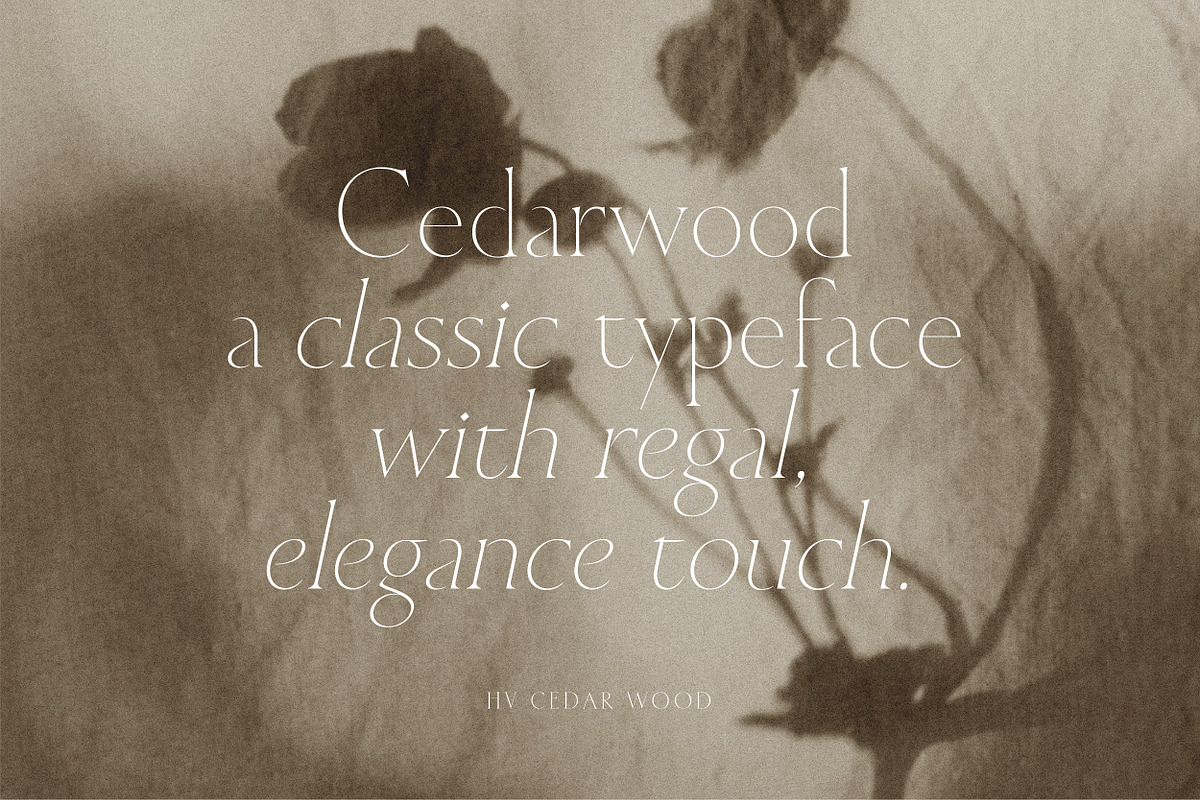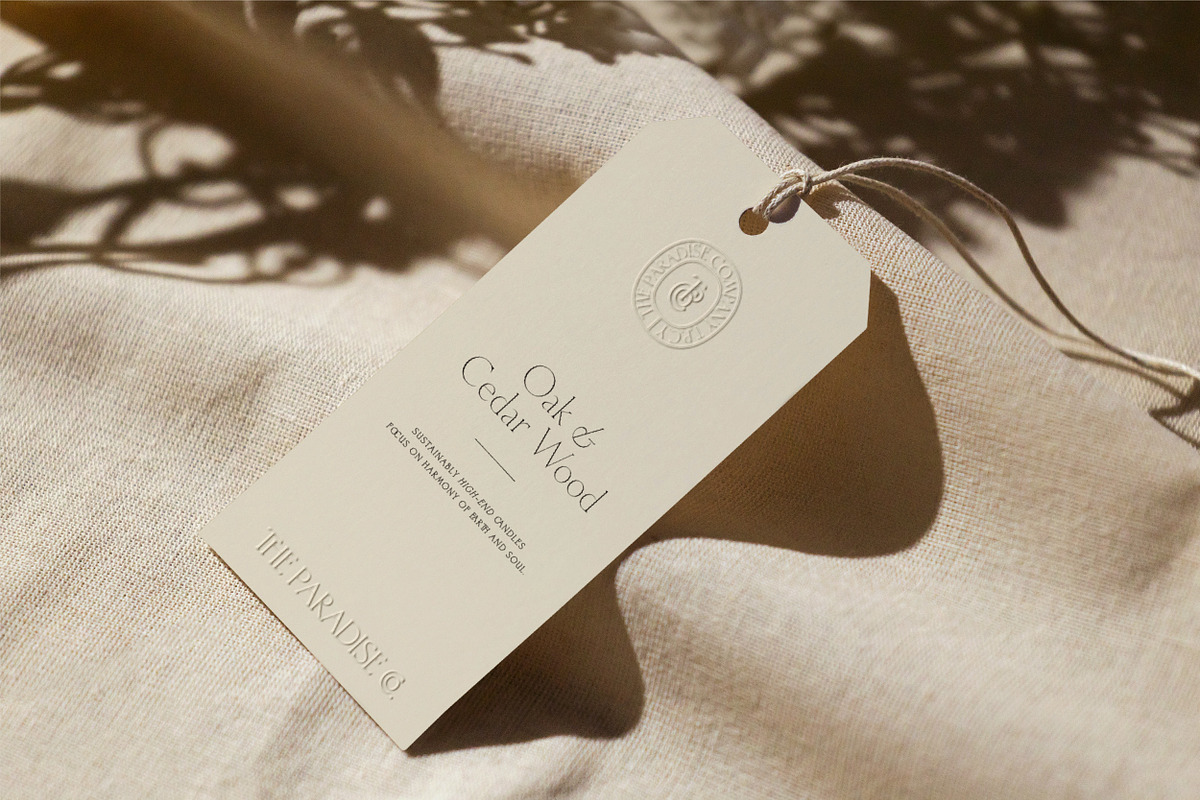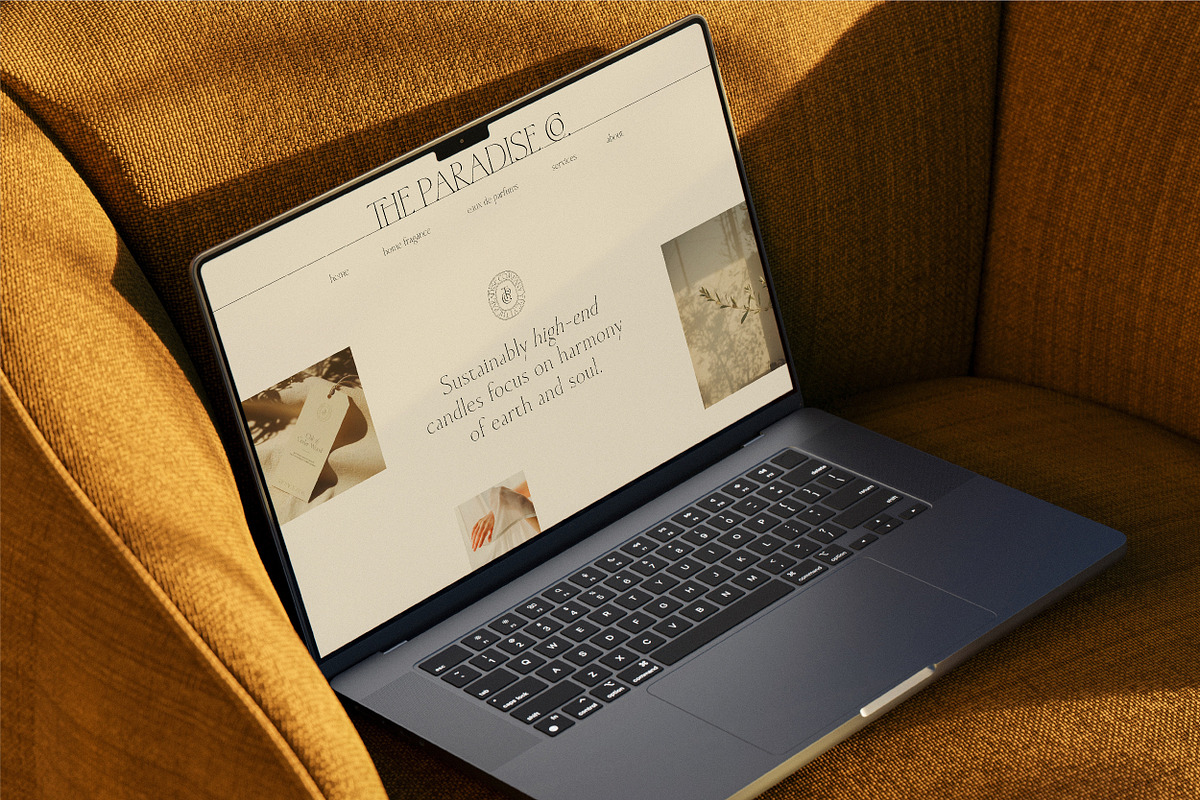
Cedarwood Font
Cedarwood Font
Cedarwood Font is a classic serif typeface with a regal and elegant touch. Inspired by the masterpieces of vintage design, Cedarwood brings a timeless beauty, perfectly blending luxury with high applicability.
Font NameCedarwood – Classy Serif
CategorySerif Fonts
StylesRegular, Italic, Bold
Extended FeaturesStandard Ligatures
Key Features of Cedarwood Font
Not just an ordinary serif font, Cedarwood boasts exquisite strokes and a sharp contrast between thick and thin lines. This ensures your typography always stands out and catches the eye.
• Style: Classic, Elegant, Vintage, Regal.
• Resolution: Renders excellently on both digital screens and high-resolution print materials.
Best Design Applications
Thanks to its inherent elegance, Cedarwood Serif Font is the perfect choice for projects demanding a high-end aesthetic. You can beautifully integrate this typeface into:
• Logos & Brand Identity: Creates a sense of trust and class for fashion, jewelry, cosmetics, or hospitality brands.
• Editorial Design: Magazine covers, blog article headers, or fashion lookbooks.
• Product Packaging: Enhances the luxurious appeal of wine labels, cosmetics, or premium gift boxes.
• Wedding Invitations & Events: Brings a romantic, classic vibe to invitation templates and greeting cards.
Cedarwood font preview — sample text
Cedarwood font alphabet, numbers and glyphs
Cedarwood font style preview